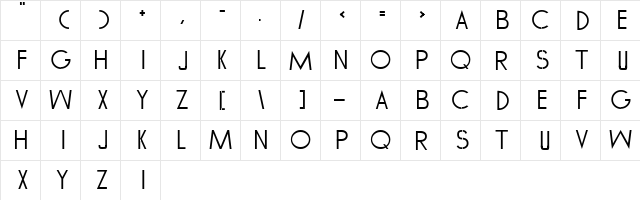
AF TOMMY HILFIGER Regular
Design Context for AF TOMMY HILFIGER Typeface
AF TOMMY HILFIGER is a composed and adaptable typeface that performs quietly and consistently across a wide range of design contexts.